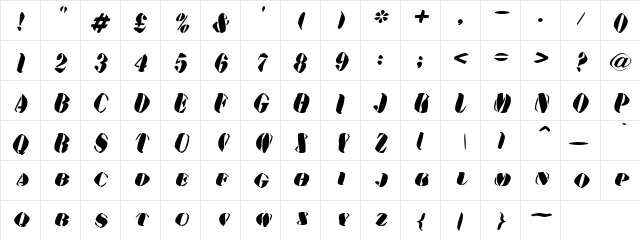
AustralianFlyingCorpsStencilSA Regular
Design Context for AustralianFlyingCorpsStencilSA Typeface
AustralianFlyingCorpsStencilSA borrows the utilitarian aesthetic of stencil lettering, with its characteristic cutaways and no-frills construction lending an industrial edge.
Ideal for industrial branding, streetwear, military-adjacent aesthetics, and urban signage projects.
Pro Tip: Pair AustralianFlyingCorpsStencilSA with raw, utilitarian design elements — exposed concrete textures, flat colour, and minimal ornamentation suit it well.